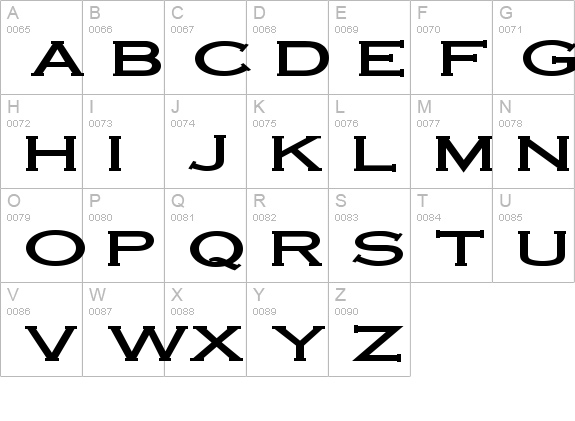
Cobalt Extended Bold is a strong, high-contrast, extended-width variant in the Cobalt typeface family \xE2\x80\x94 well suited to headlines, attention-grabbing titles, and strong calls-to-action.
Cobalt Extended Bold is a striking and versatile font that exudes modernity and sophistication. With its bold and extended design, this typeface commands attention and makes a powerful statement in any design project. The sharp lines and clean edges of Cobalt Extended Bold give a sleek and professional look, perfect for headlines, logos, branding, and more. What's even better is that Cobalt Extended Bold is available for free download at FontsMarket.com. This means you can easily access and use this high-quality font for your personal or commercial projects without any cost. Don't miss out on the opportunity to add Cobalt Extended Bold to your font collection and elevate your designs with its bold and impactful aesthetic.